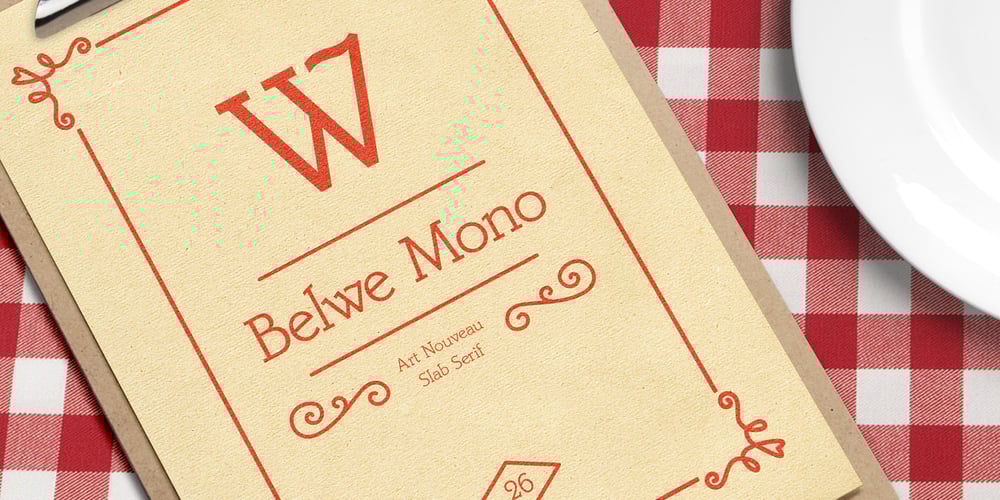
Belwe Mono Font Family was designed by Georg Belwe and published by ITC. Belwe Mono contains 2 styles and family package options. The typeface Belwe, created in 1926 by German typographer and teacher Georg Belwe, has an uncommon style that is difficult to describe. It is a synthesis of many different genres: it is a slab serif with Art Nouveau style but also with many blackletter influences. The angled serifs on the ascenders and the calligraphic flourishes on the the upper and lowercase V, W, and Ys reference marks made by pens. There are also many other special characters that are unlike any other designs. Have a look at the fun lowercase a, the quirky lowercase f and g, and the unique C, F, L, and R for the uppercase. This design works especially well for display sizes, but is also good for short amounts of text. The mood and image suggested by this typeface is great for menus, invitations, and signs when you want to send a personal and friendly message. It’s Art Nouveau roots also give it a place in history for designs from the Victorian period up through the 1920’s and 30’s